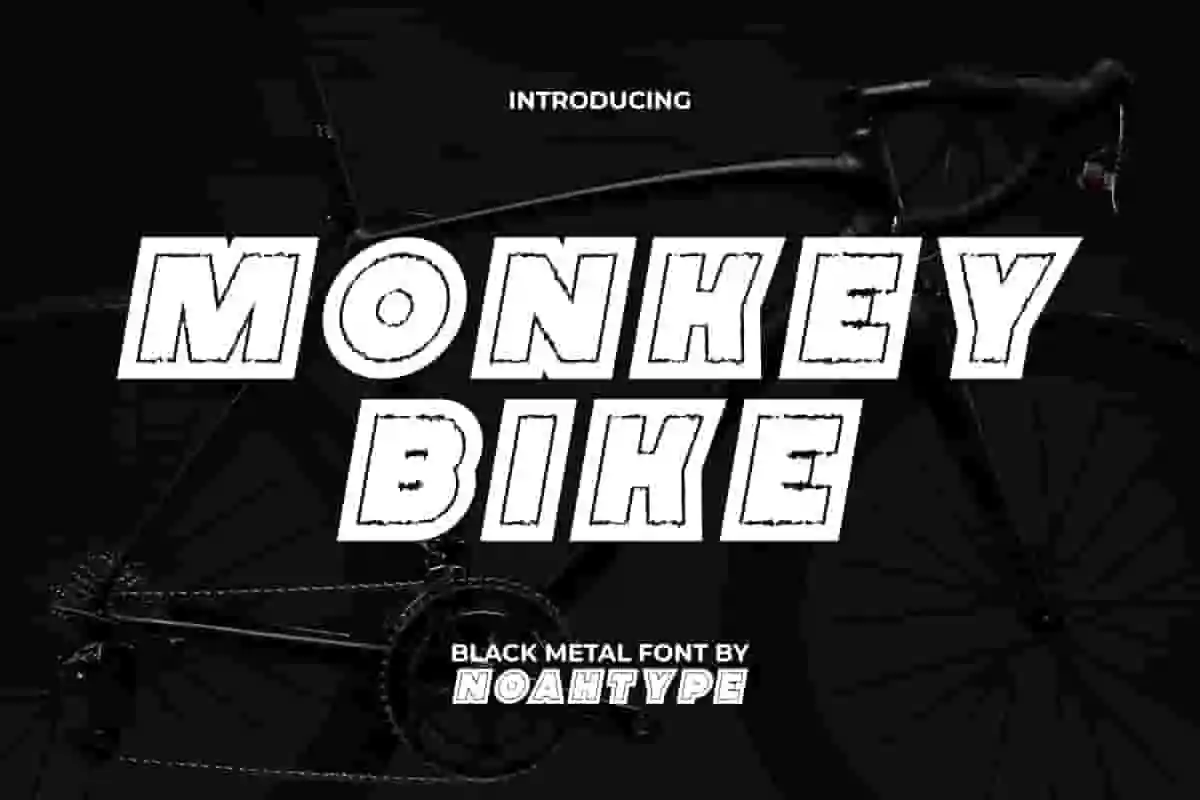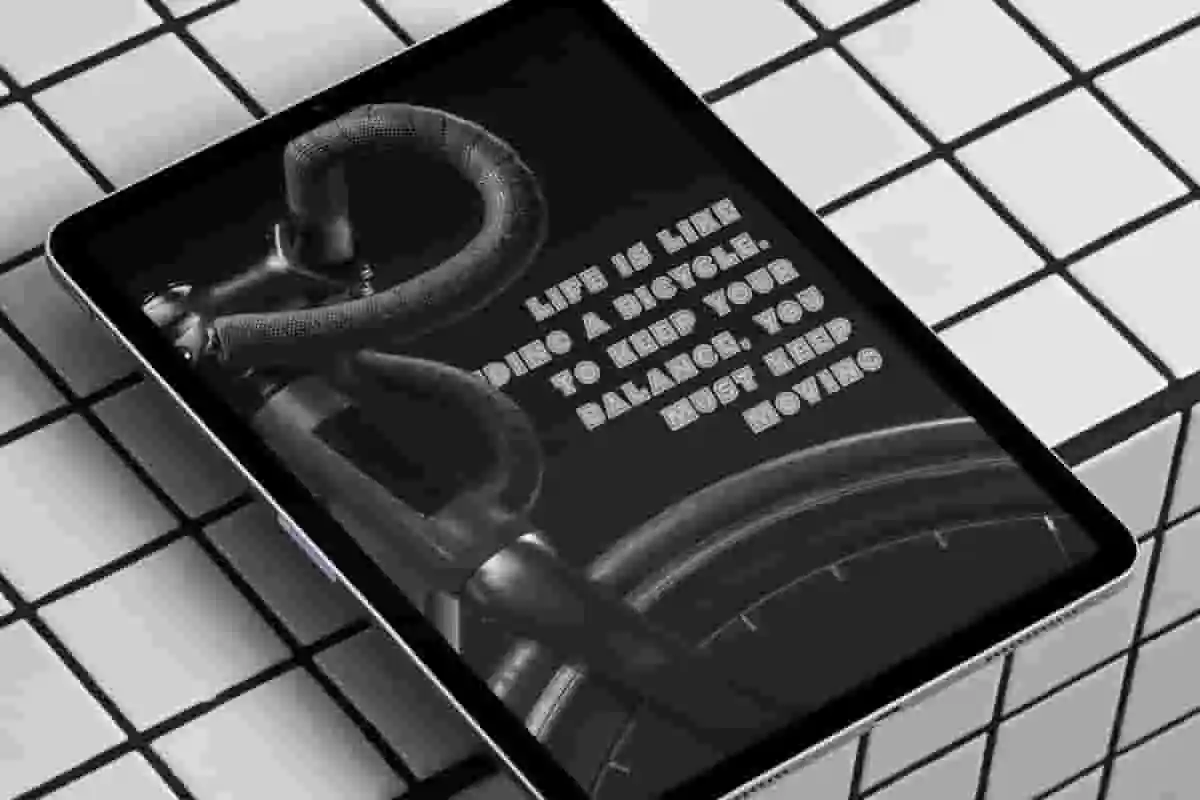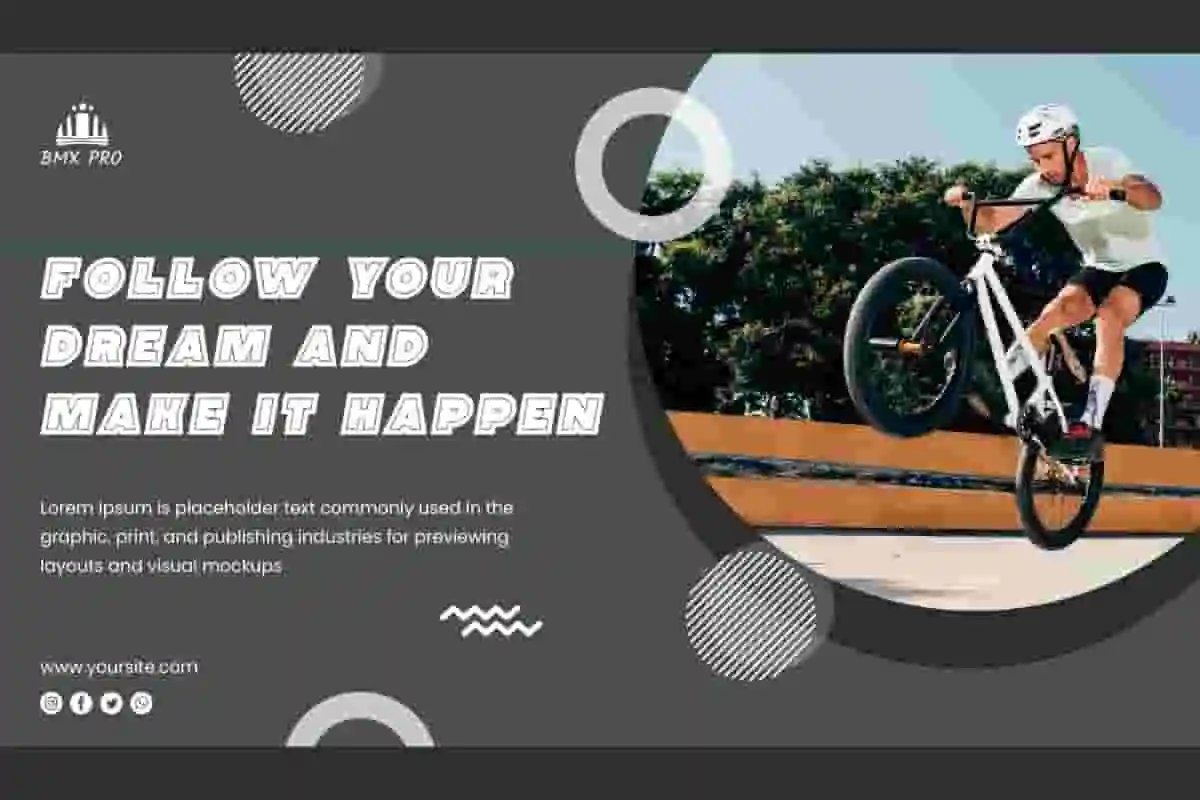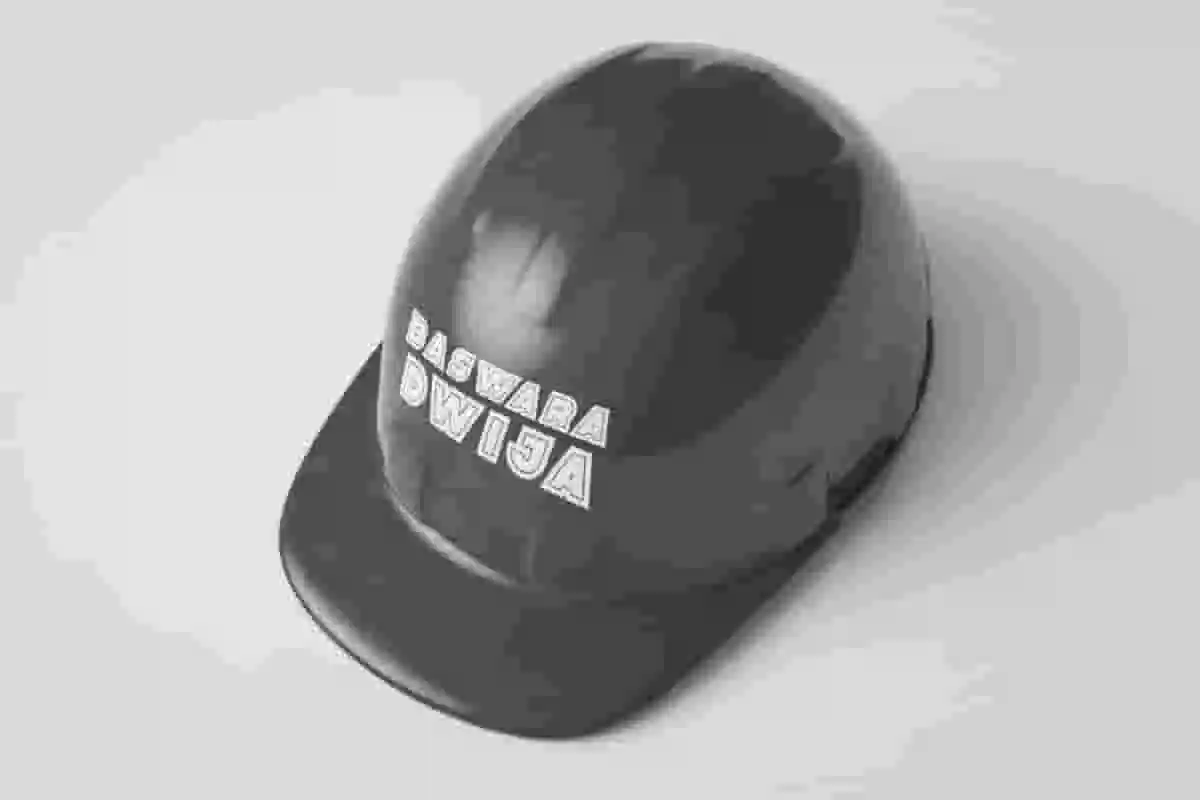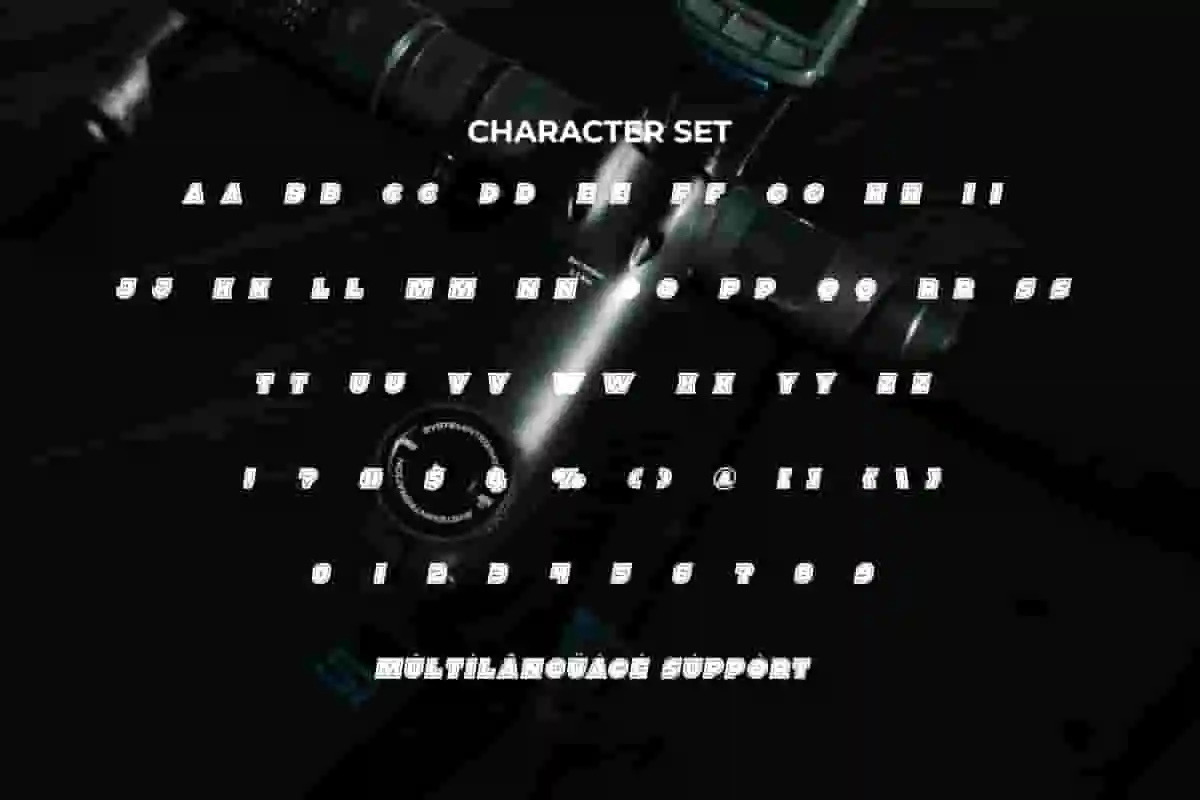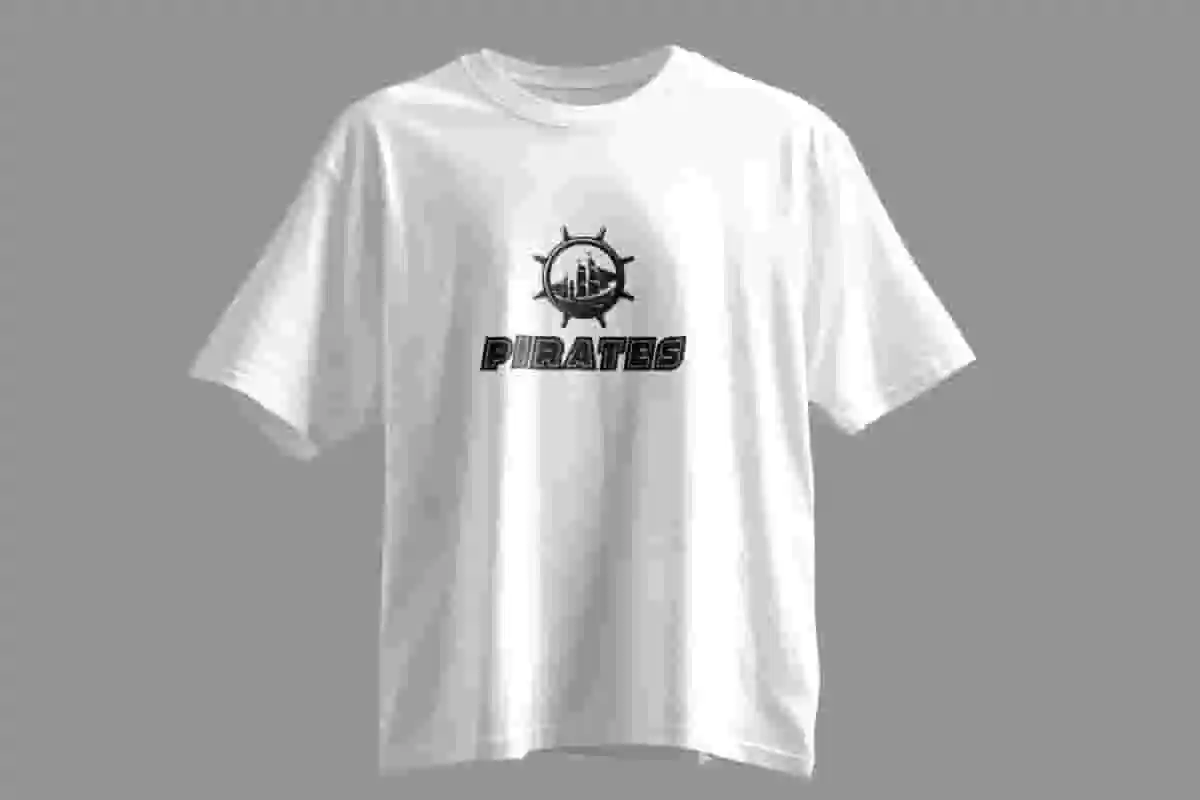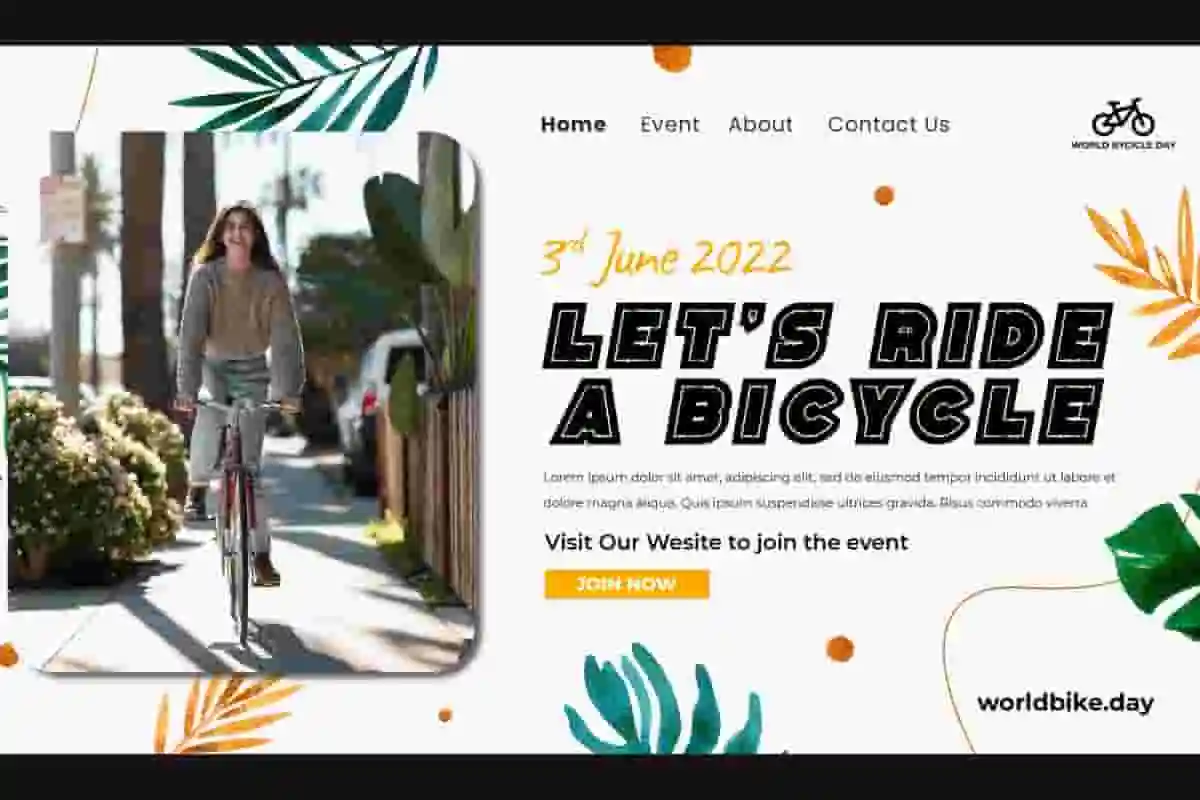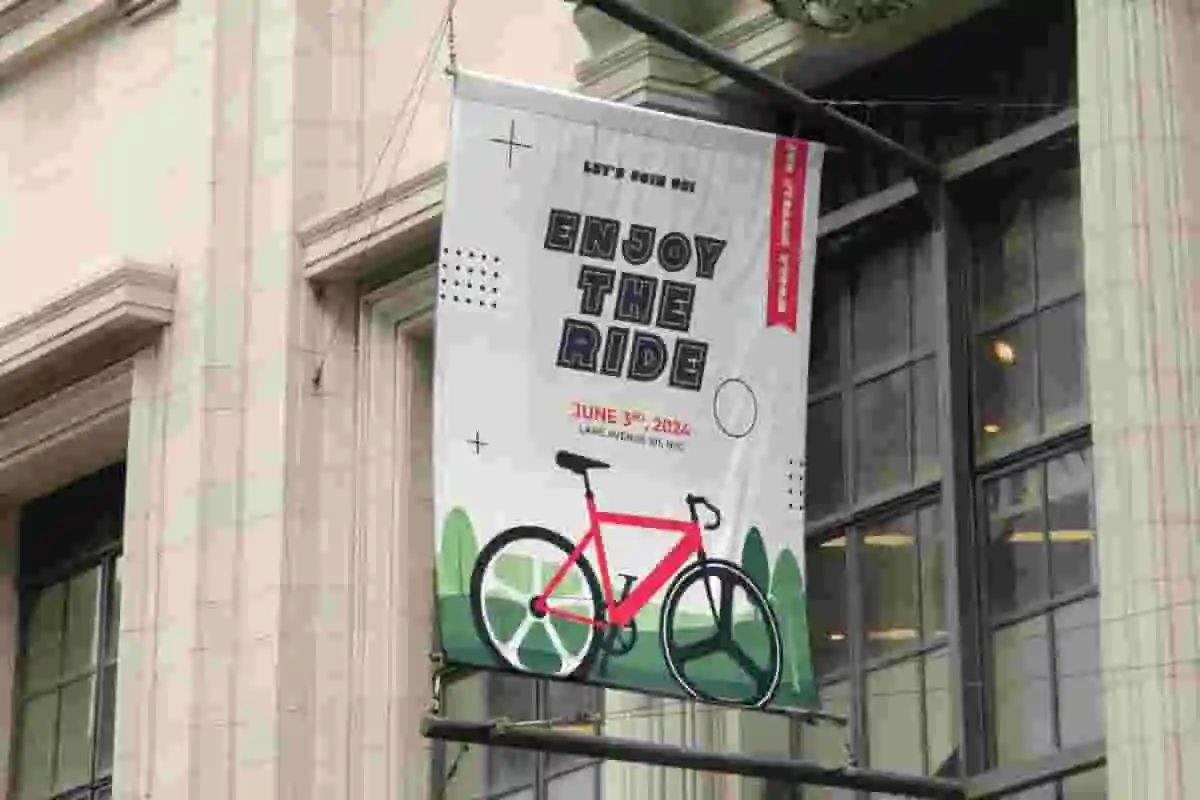
Monkey Bike Font is a decorative strong and sporty Black Metal font by NoahType. This font has rough and thin line characters, then placed in a box so that it makes its appearance unique. It will be awesome for any designs, such as custom design, brand image, poster, label, invitation, cover, marketing material, menu, printing, product packaging, quotes, signage, website, and many more!
Monkey Bike Font includes full set of ALL CAPS for Uppercase and Lowercase Basic Characters, Numerals, Punctuation, and Symbol. This creative font will make your design cool and also a perfect choice for many industries, such as game, movie, comic, music, accessories, advertising, art, café, event or festival, fashion, printing, publishing, etc.